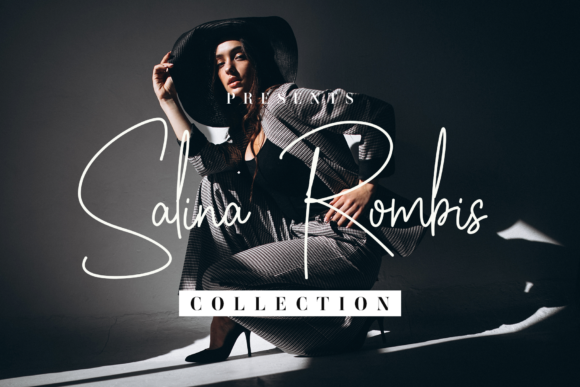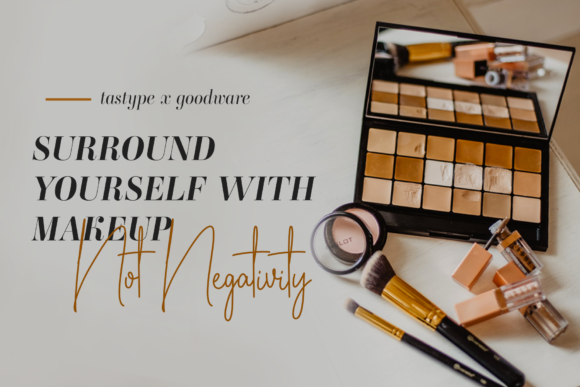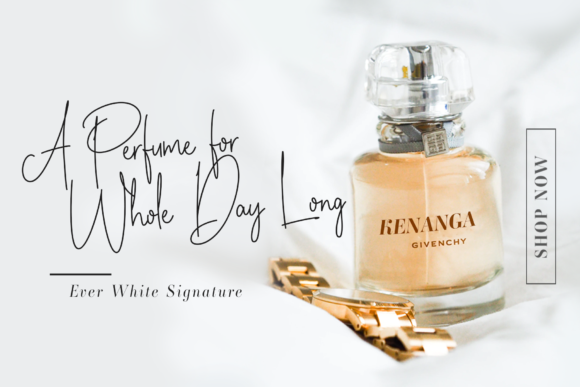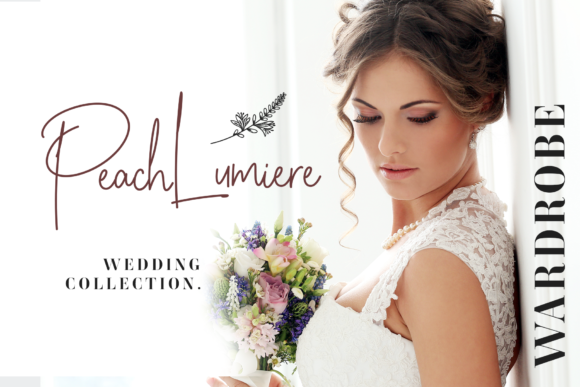
Ever White Font
Ever White is an elegant monoline script font. It features an incredibly classic style, while still keeping a friendly feel. Ever White is the perfect font for making original and outstanding designs.